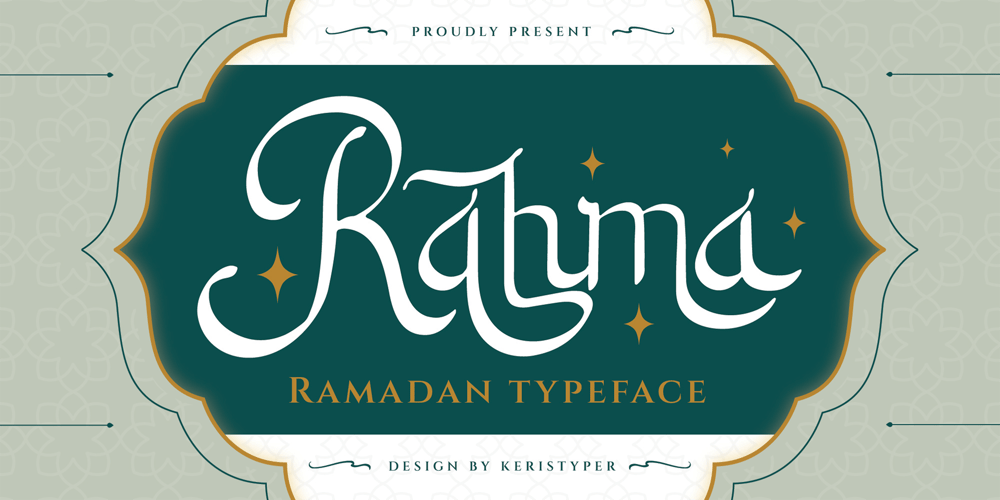
Rahma
Rahma font
Rahma Font Family was designed by Tezar Tantular and published by Keristyper Studio. Rahma contains 1 styles and family package options. Introducing Rahma, display font in Arabic style. Designed with a digital flat-pen and gothic typography technique which gives the elegant looks of the letters. This font is good for logo design, Social media, Movie Titles, Books Titles, short text even long text letters, and good for your secondary text font with sans or serif.**Featured:*** Standard Uppercase & Lowercase* Numeral & Punctuation* Multilingual : ä ö ü Ä Ö Ü ß ¿ ¡* Alternate & Ligature* PUA encodedWe recommend programs that support the OpenType feature and the Glyphs panel such as Adobe applications or Corel Draw. so you can use all the variations of the glyphs.Hope you enjoy our fonts!